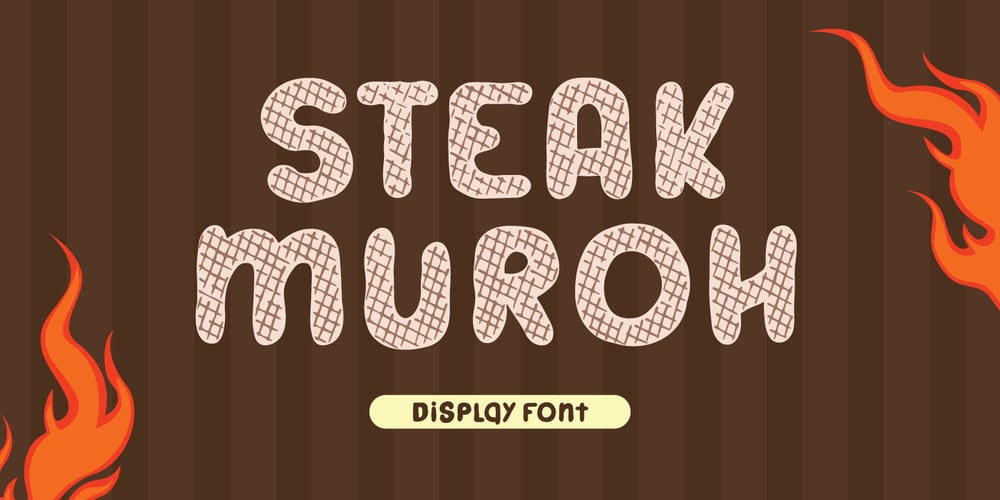
Steak Muroh Font Family was designed by Fadli Ramadhan Iskandar and published by Attype Studio. Steak Muroh contains 2 styles and family package options. Steak Muroh is a layered display font with grill effect. This font perfect for steak & grilled food promotion .Combine it with steak muroh regular & display style to make grill effects better!Steak Muroh perfect for steak restaurant & cafe promotion, branding, logo, invitation, stationery, social media post, product packaging, merchandise, blog design, game titles, cute style design, Book/Cover Title and more.What’s Included :- Steak Muroh Family Font- Layered Font- Multilingual Support —Hope you enjoy with our font!Attype Studio